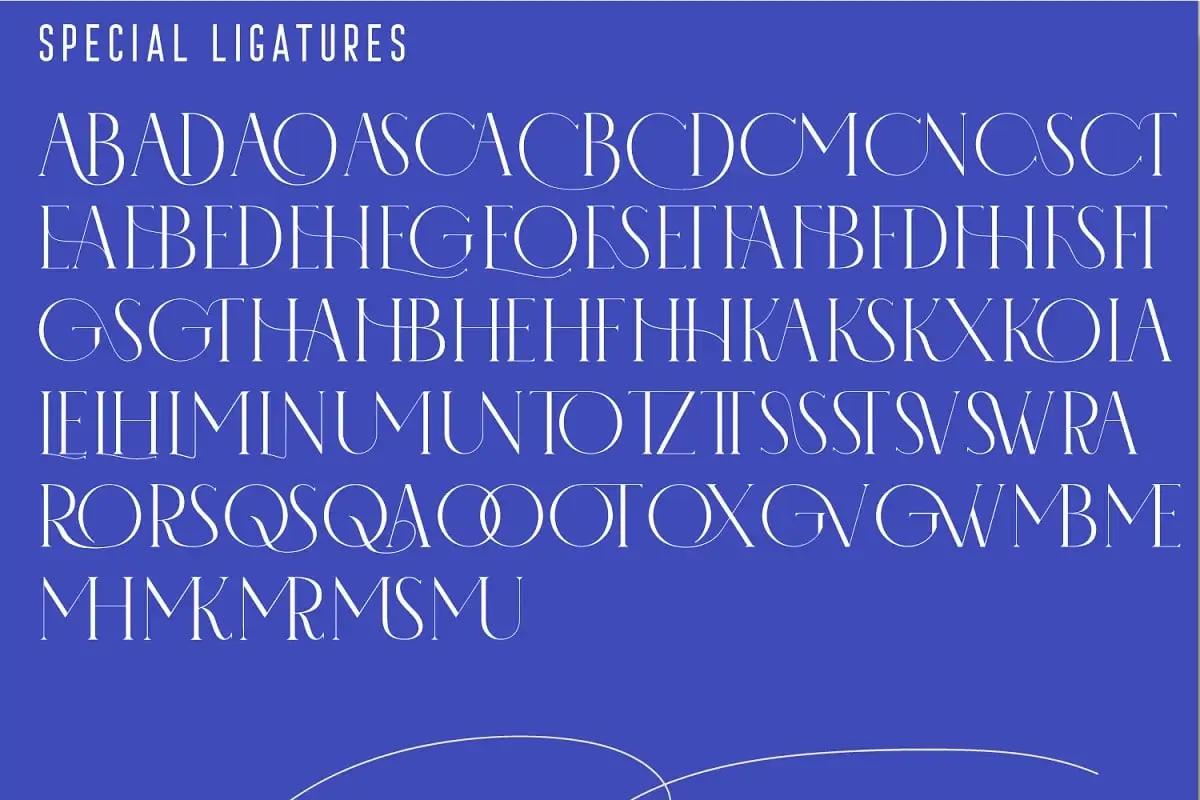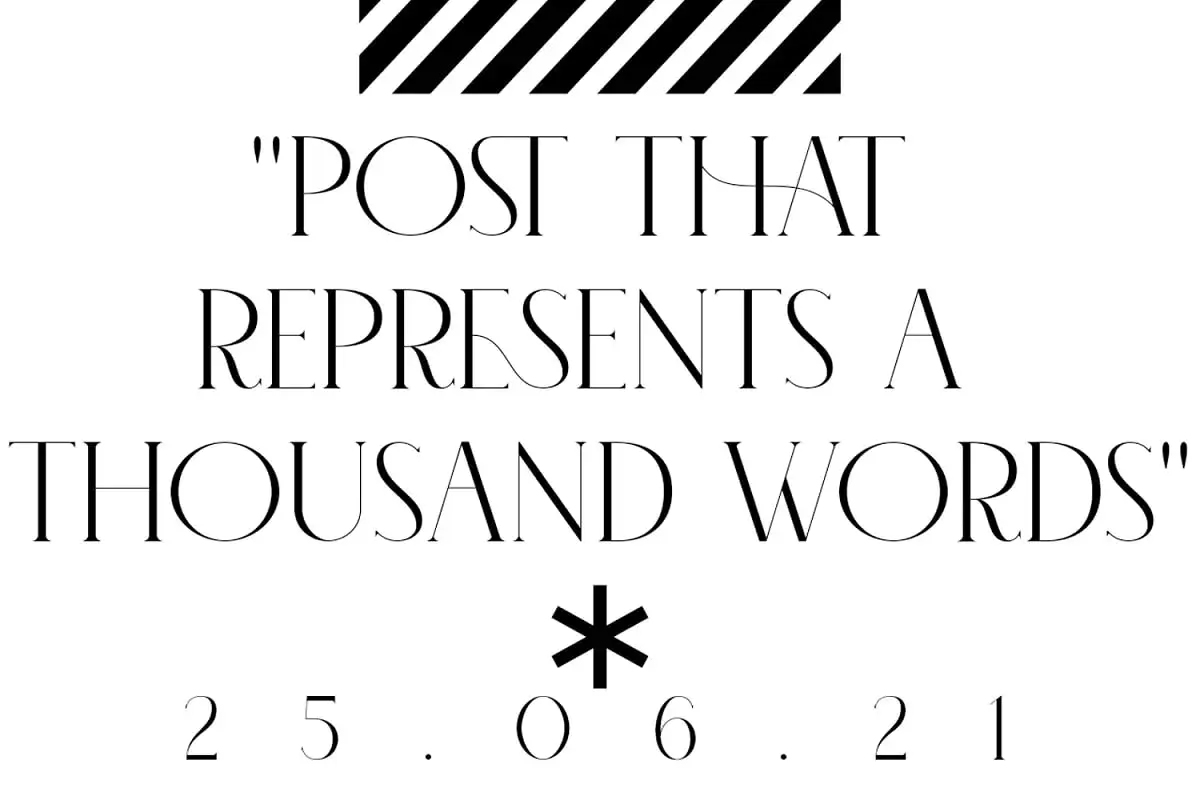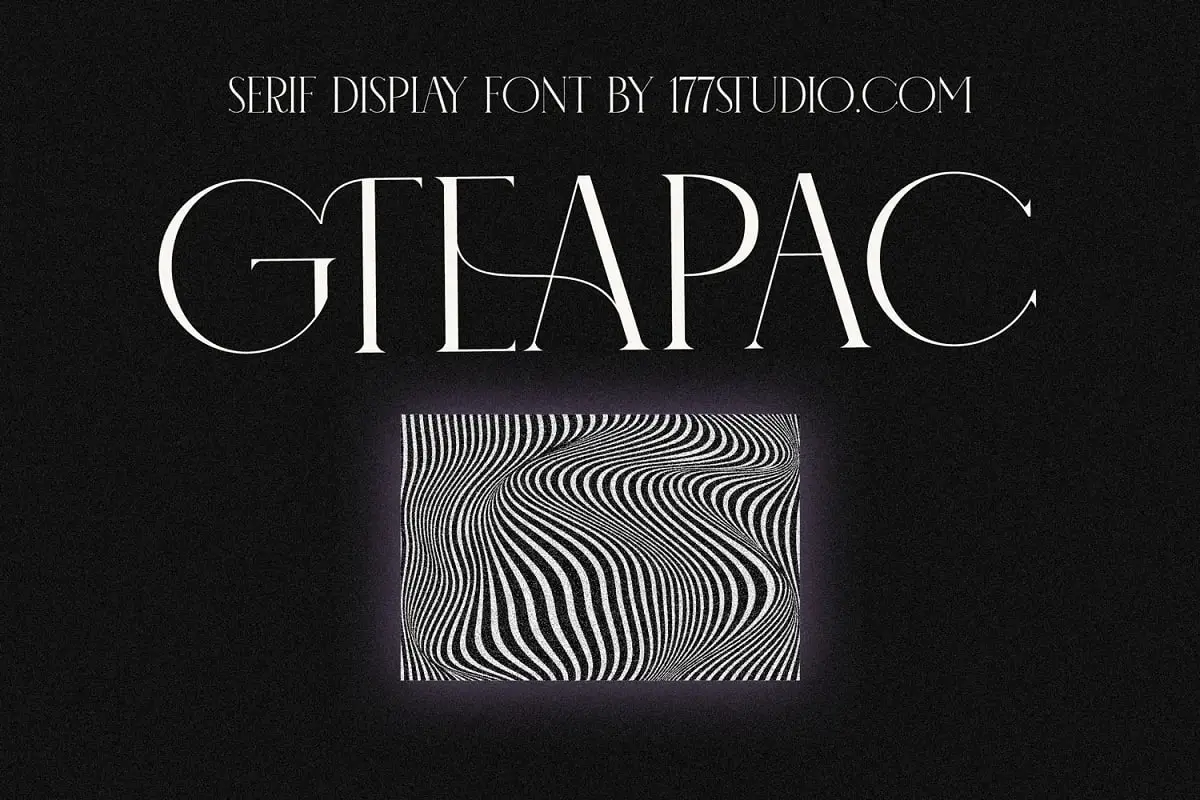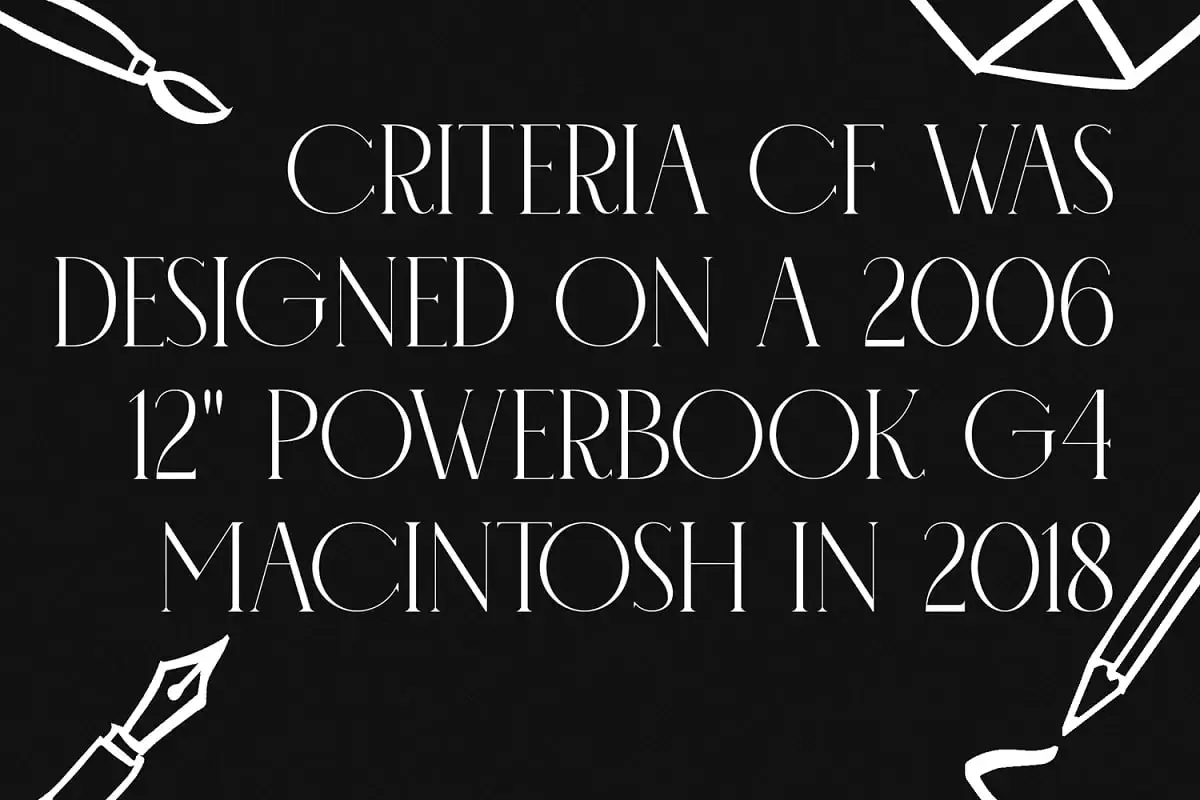
Gteapac Font
The Gteapac Font is a versatile typeface designed to elevate your design projects. With its unique blend of modern and classic styles, this font is perfect for a variety of applications.
• Weights: Light, Regular, Medium, Bold